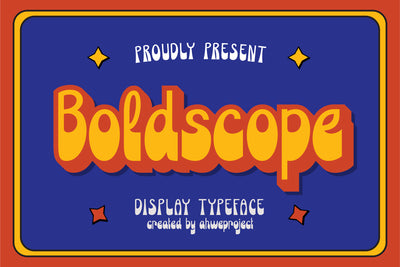
Boldscope - Retro Psychedelic Display
Boldscope is a fun, retro-psychedelic display font. No matter the topic, this font will be an incredible asset to your fonts’ library, as it has the potential to elevate any creation.